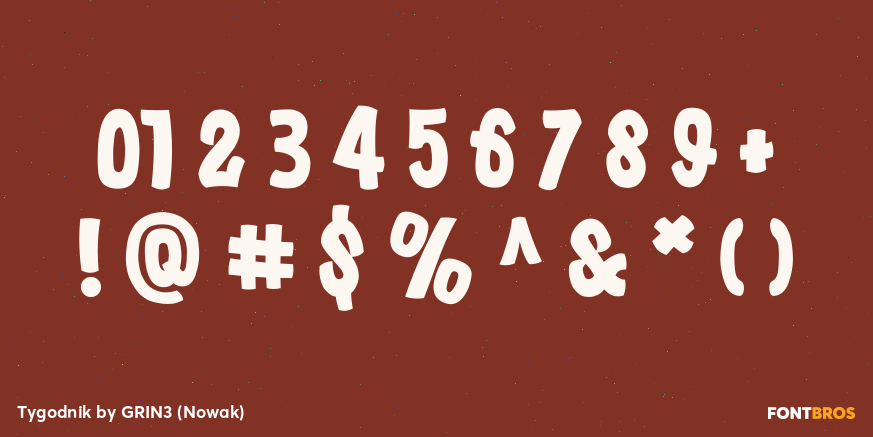
Tygodnik
Font Family by GRIN3 (Nowak)
Tygodnik is a font inspired by logo of polish magazine Tygodnik Powszechny. Language support includes Western, Central and Eastern European character sets, as well as Baltic and Turkish languages.